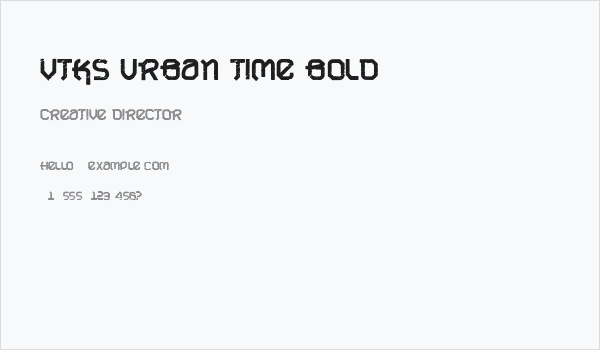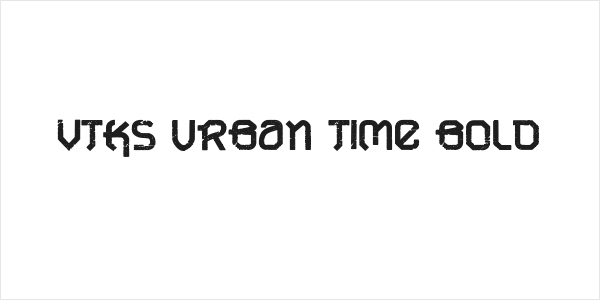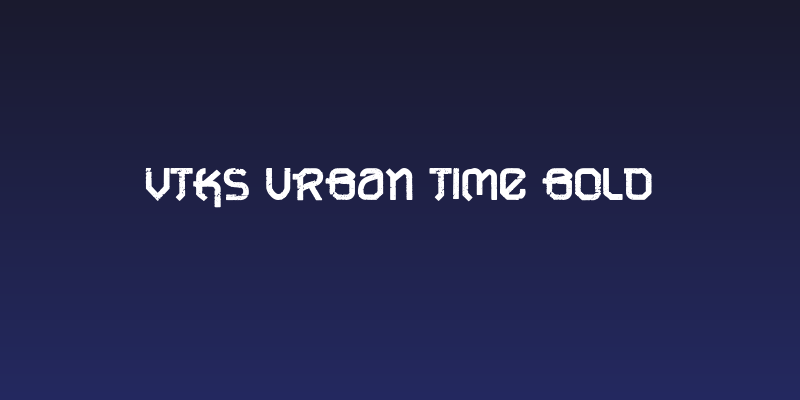
VTKS URBAN TIME bold Font
VTKS URBAN TIME bold Description
This font features a bold, distressed style with a modern, urban aesthetic. The characters have a rough, textured appearance, giving them a gritty and edgy feel. The uppercase and lowercase letters maintain a consistent height, while the numbers and special characters follow the same rugged design. The font's unique style makes it stand out, with each letter appearing as if it has been weathered over time. The overall look is both industrial and artistic, making it suitable for projects that require a bold statement.
| Overall Style | Modern, Urban, Edgy |
| Proposed Projects | Ideal for street art designs, urban-themed posters, album covers, and edgy branding projects. |